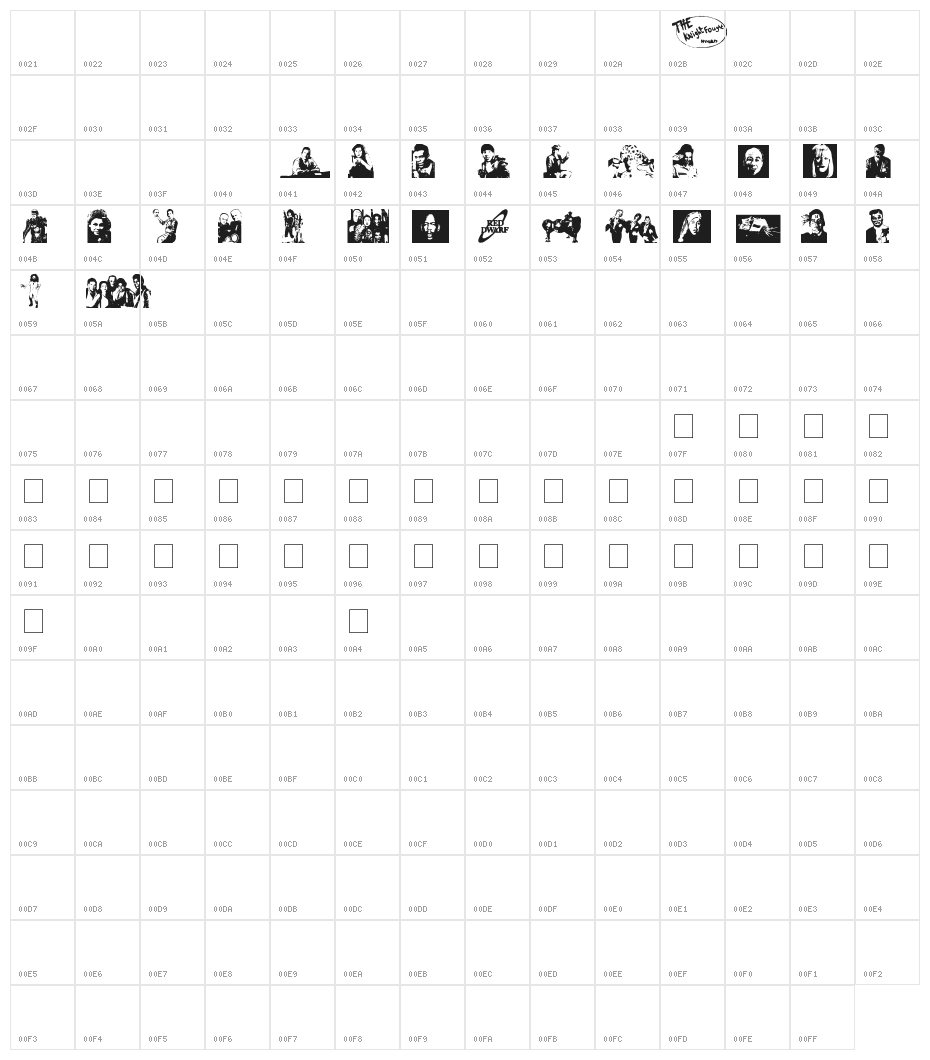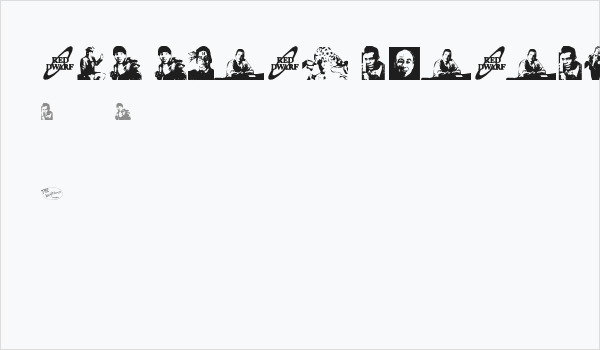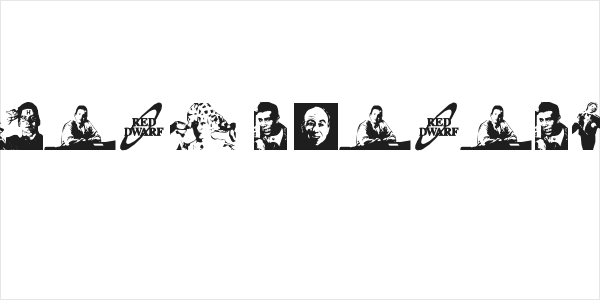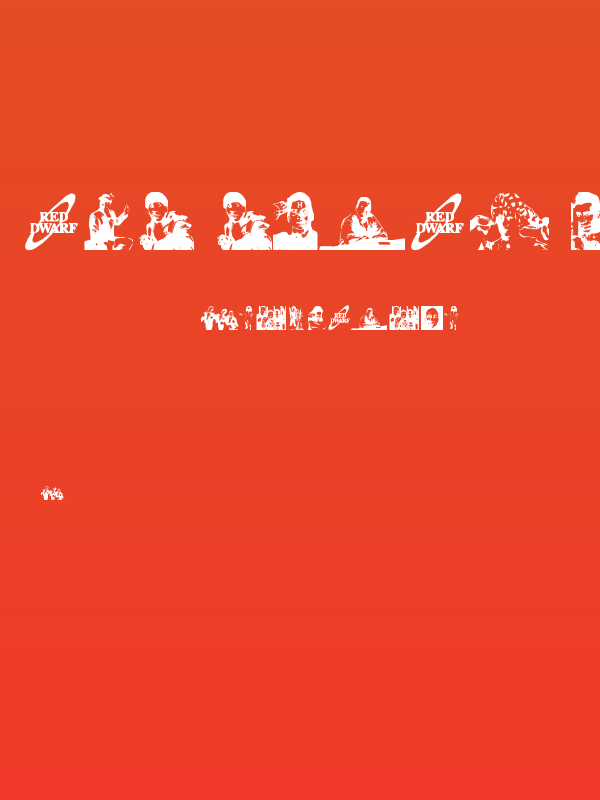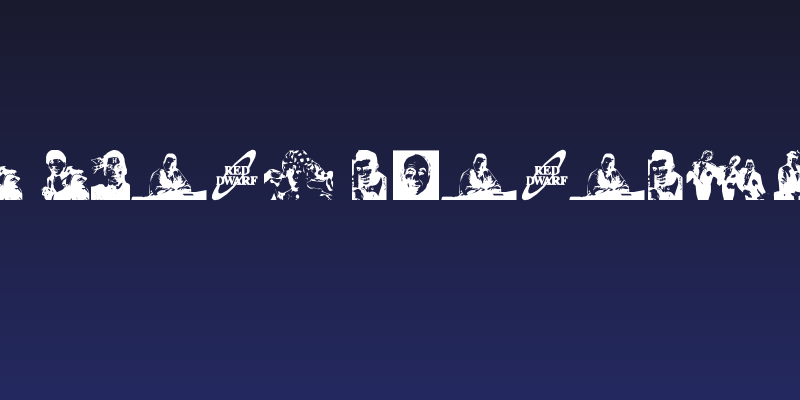
RED DWARF CHARACTERS Font
RED DWARF CHARACTERS Description
A decorative display font composed of high-contrast, black-and-white stencil-style silhouettes of various characters and scenes, each glyph representing a unique figure or group in a rectangular frame. The font is highly illustrative and visually distinctive, with each character rendered in a bold, graphic manner.
| Overall Style | Decorative, Pop Culture, Graphic |
| Use Case | Headlines, Logos, Themed graphics, Posters |
| Proposed Projects | Posters, fan art, themed event invitations, novelty merchandise, entertainment branding. |